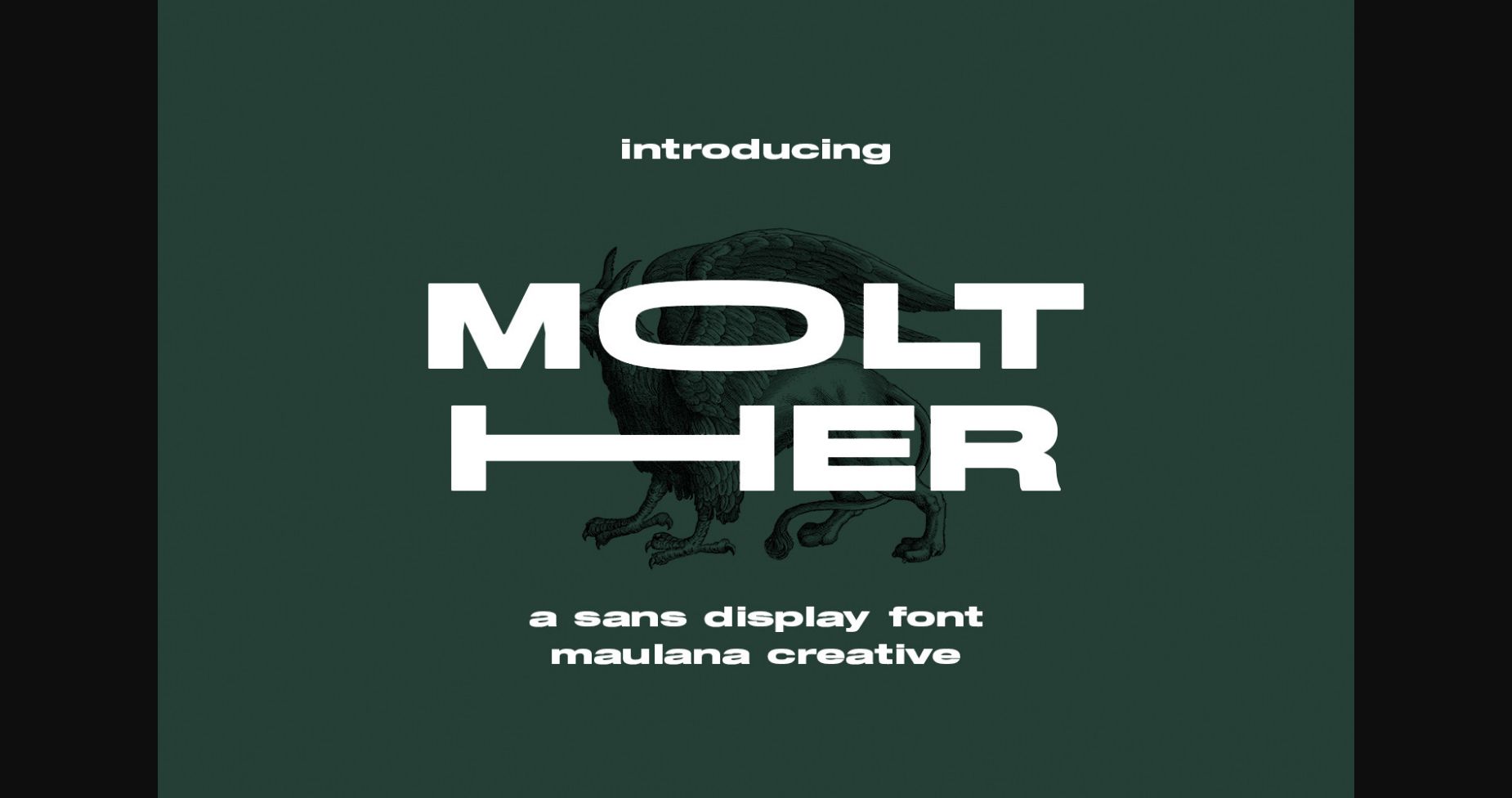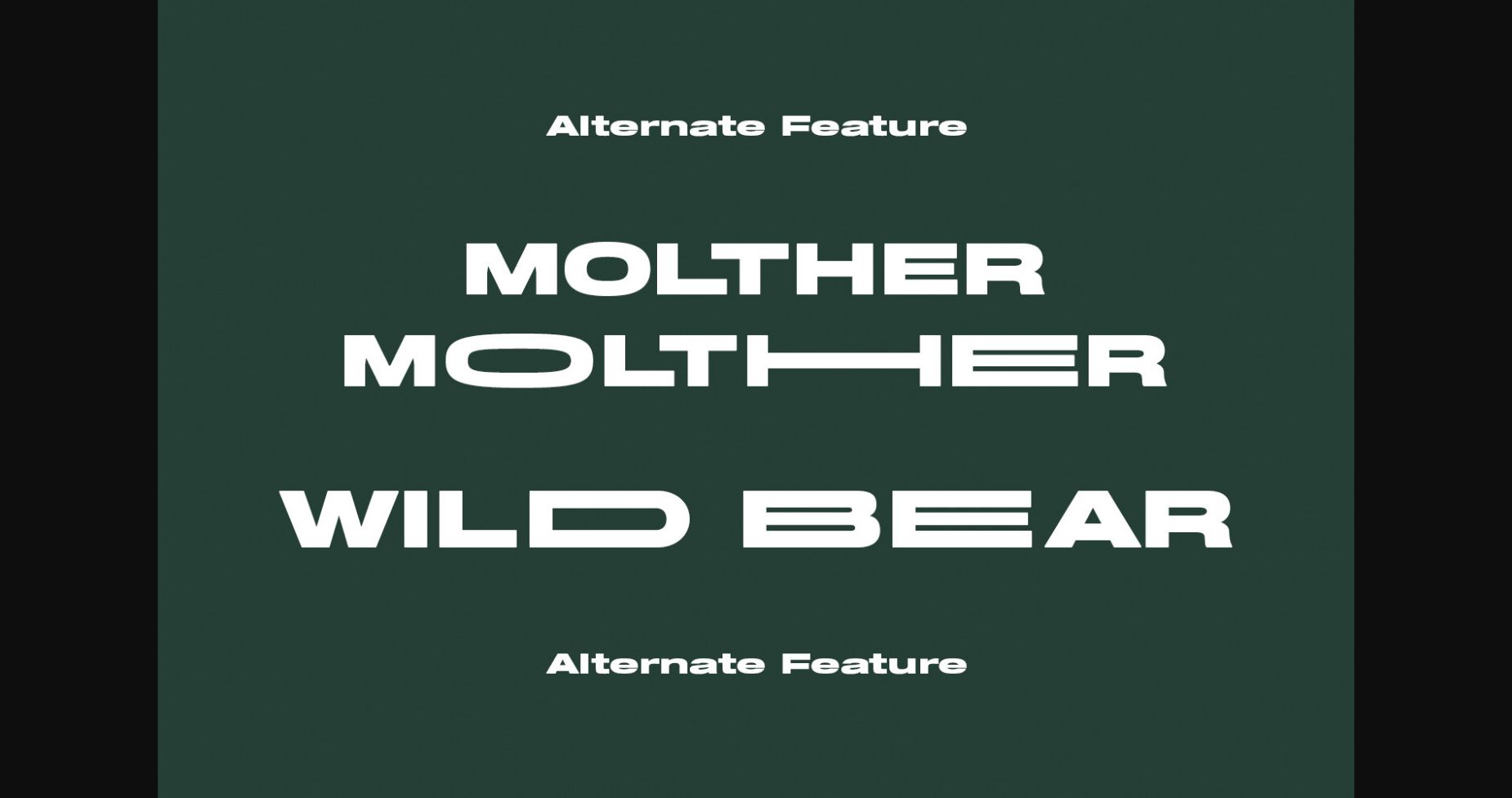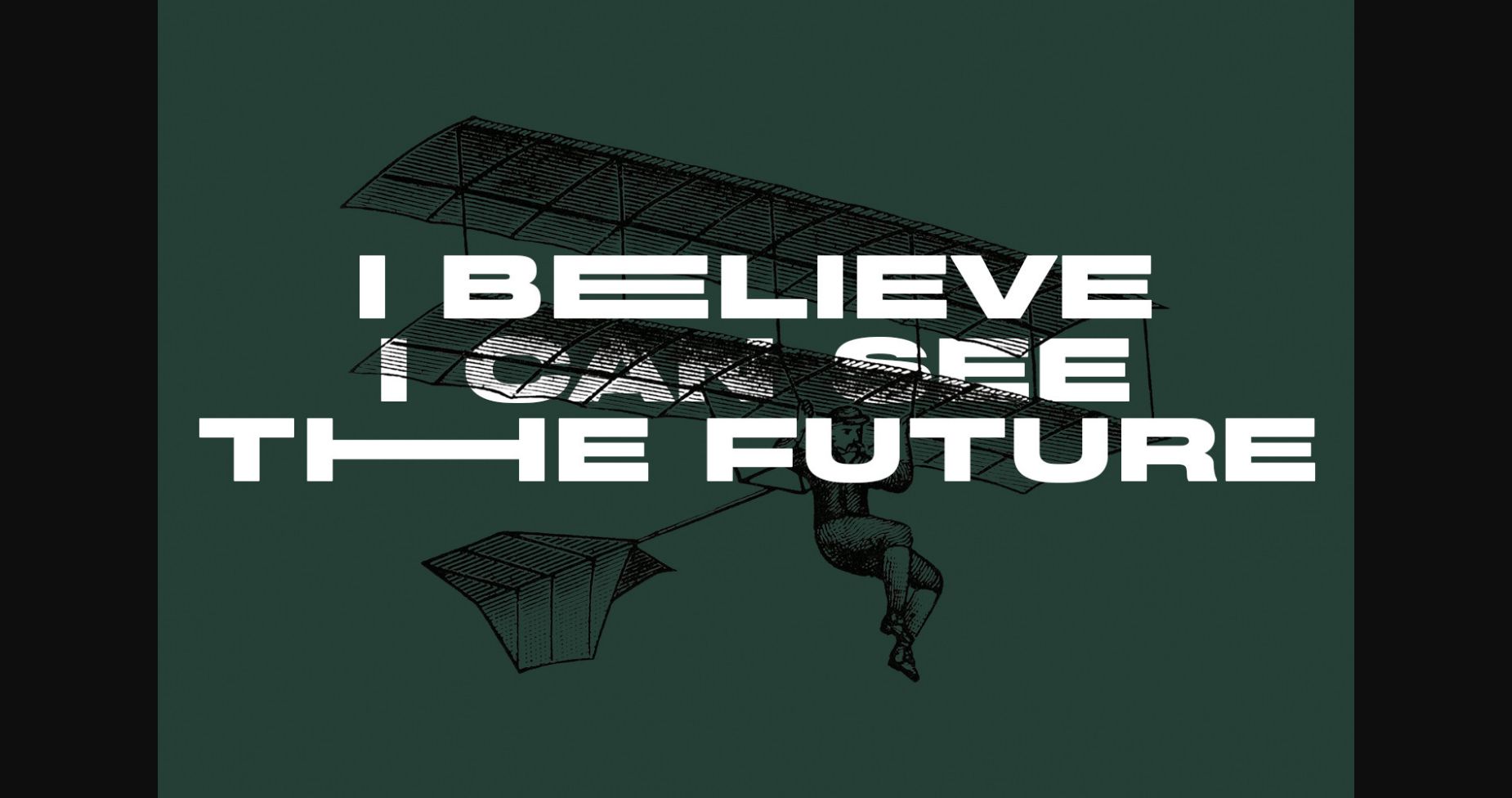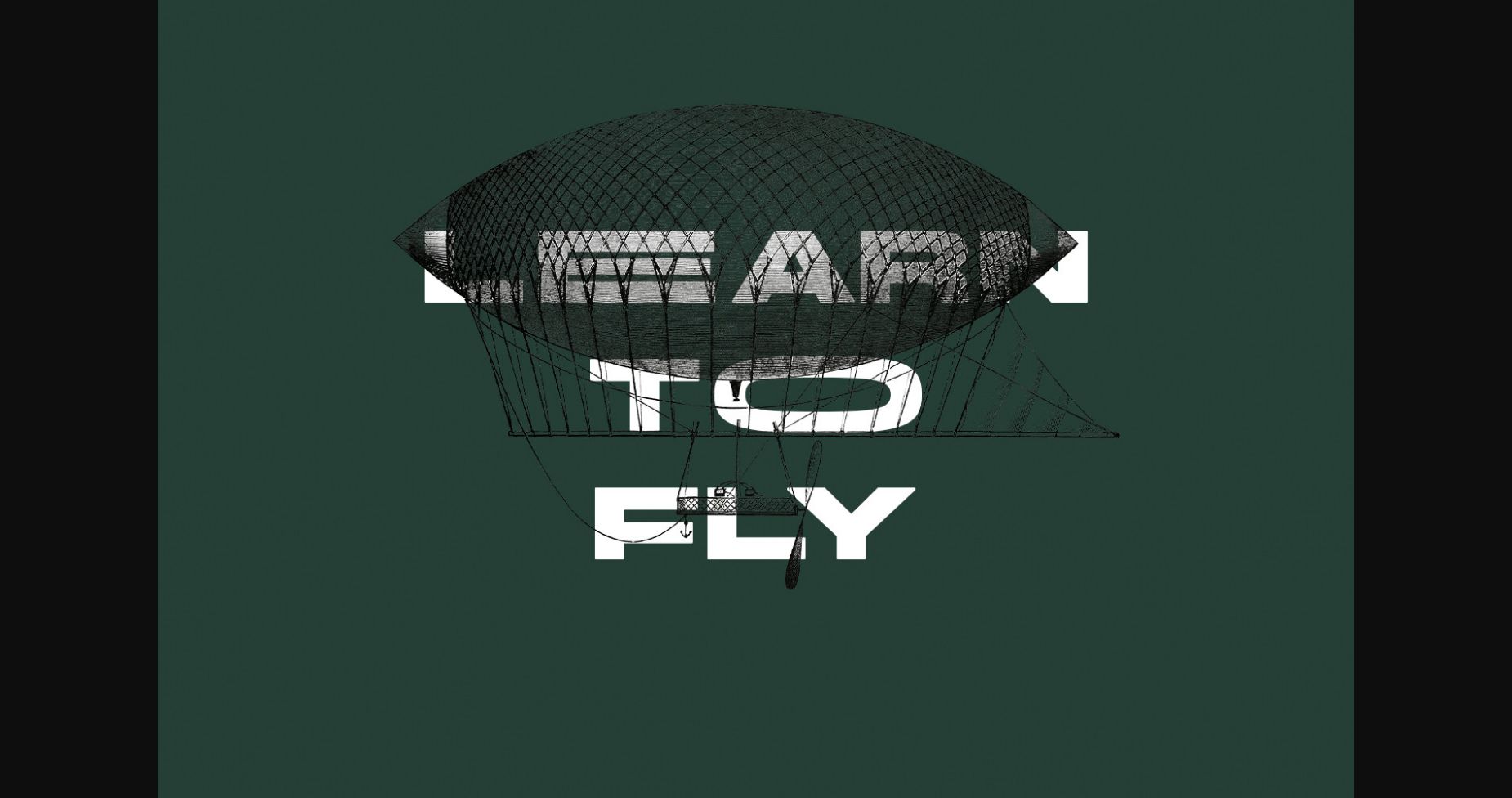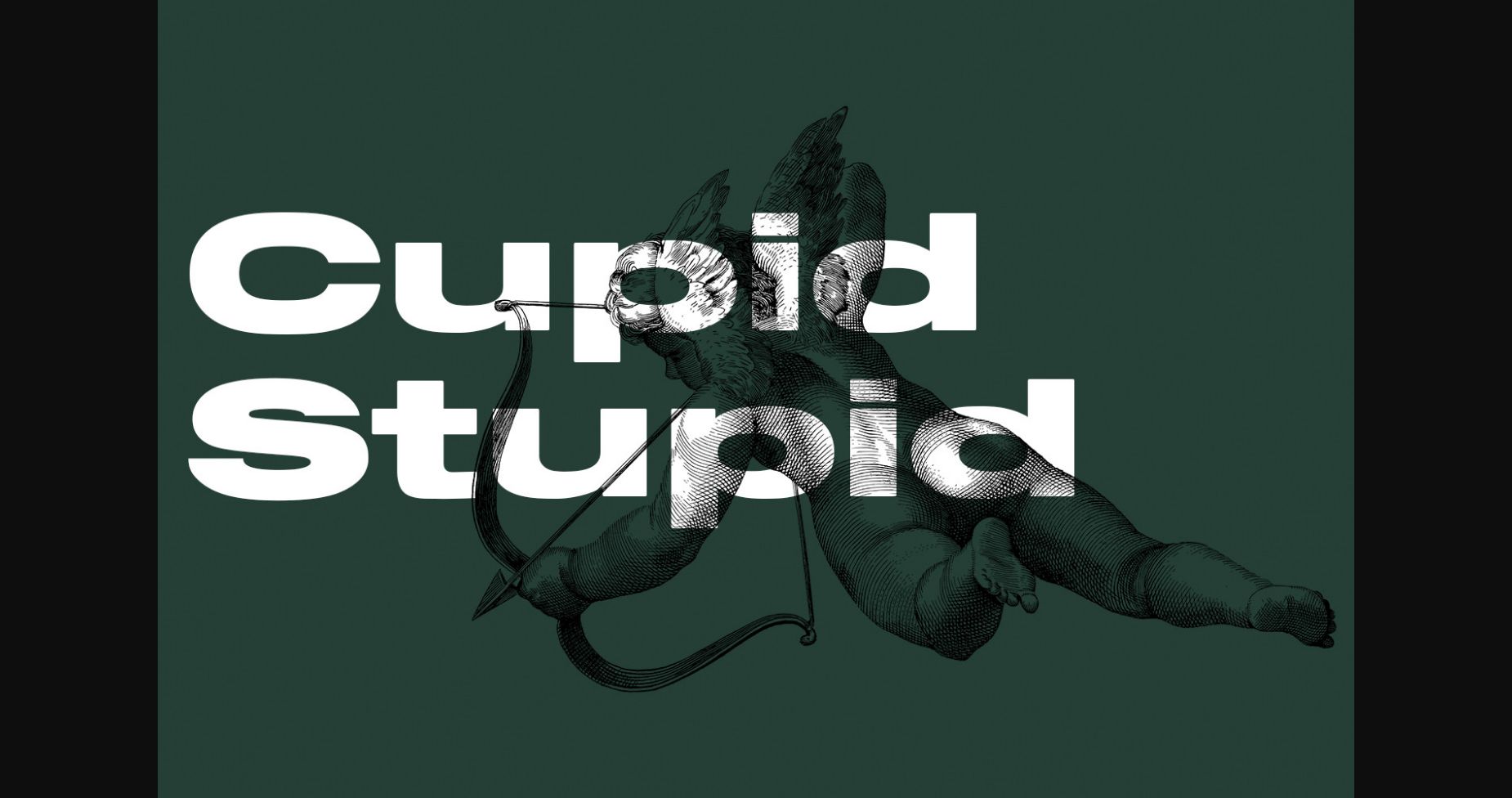
About Molther Font
Molther is a modern wide sans serif font with medium-low contrast strokes, a fun character with a bit of ligature, and alternates to give you extra creative work. Atraks is good for logo design, social media, movie titles, book titles, short text, and long text, and good for your secondary text combined with a sans or serif. Make stunning work with the Molther font!